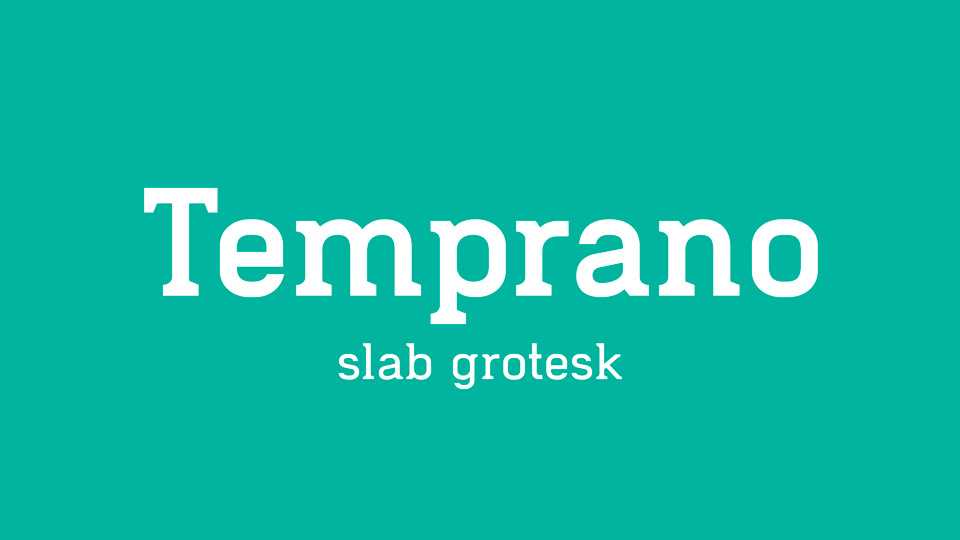
Download Temprano font family, a typeface halfway between a slab and a grotesque. Based on geometric proportions, Temprano typeface achieves a resounding and consistent appearance.
Designer: Sergio Navarro